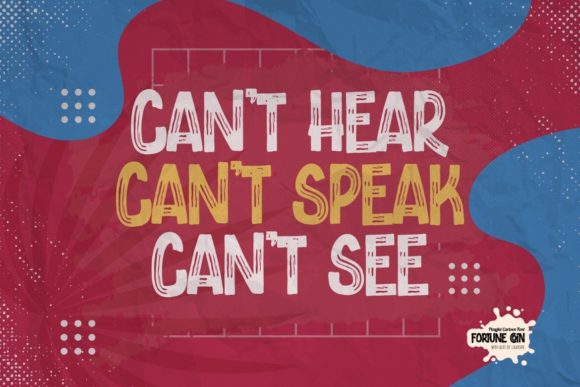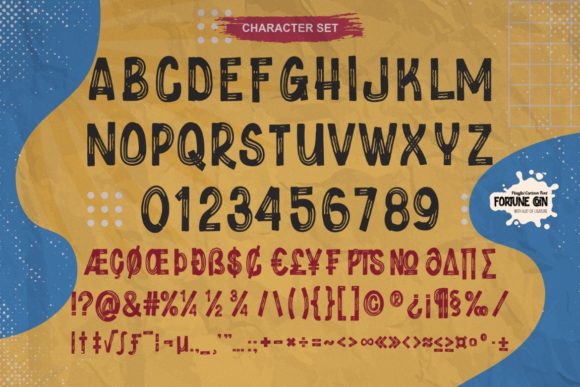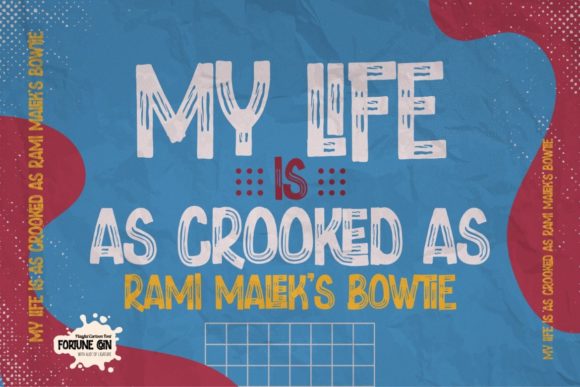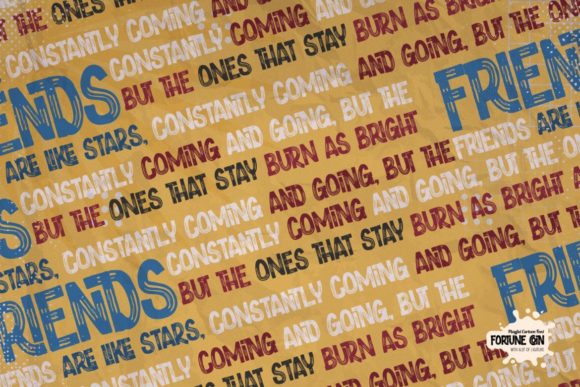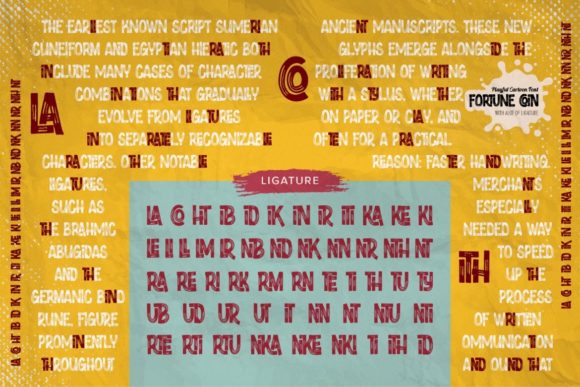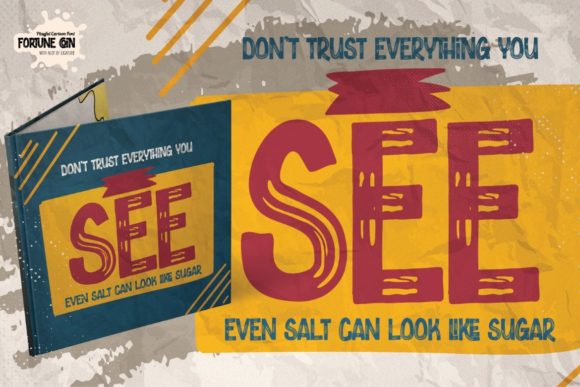
Introduction to Fortune Coin Font
Have you ever stared at a blank canvas, feeling the weight of a creative project on your shoulders? The blank page, the empty screen – it’s a daunting sight for many designers. But what if I told you that there’s a secret to unlocking your full design potential? It starts with the right tools, and that’s where the Fortune Coin Font comes in.
This cool, brushed, and bold display font is a game-changer for any design project. Whether you’re creating a poster, flyer, or print, Fortune Coin Font adds a touch of sophistication and elegance that’s hard to resist. With its versatility and high quality, it’s no wonder that designers are flocking to this font as their go-to design resource.
Key Features of Fortune Coin Font
- Unique and stylized design, perfect for creative projects that require a touch of elegance and sophistication.
- High-quality font with transparent background, ideal for designers who want to add a subtle and versatile design element to their work.
- Perfect for designers working on projects that require a touch of luxury and sophistication, such as wedding invitations, luxury branding, and high-end packaging.
Honest Review: Fortune Coin Font
As a designer, I’m always on the lookout for high-quality design resources that can elevate my creative projects. Recently, I came across the Fortune Coin Font, and I must say it’s been a great addition to my collection.
What works well: ✨ The Fortune Coin Font has a unique and eye-catching design that’s perfect for projects that require a touch of elegance and sophistication. The font is available for free download, which is a major plus for designers on a budget. The transparent background feature also makes it easy to customize and integrate into various design elements.
What doesn’t work well: ⚠️ While the Fortune Coin Font is a great design resource, I’ve noticed that it’s not ideal for large-scale text or headings. The font can get a bit blurry when enlarged, which may affect readability. Additionally, the font family is relatively small, so you may need to use it in conjunction with other fonts to achieve the desired look.
Overall, I’m impressed with the Fortune Coin Font and would definitely recommend it for designers working on creative projects that require a unique and stylish touch. With a little creativity and experimentation, you can unlock its full potential and take your designs to the next level.
- Unique and stylish design
- Not ideal for large-scale text or headings
- Font family is relatively small
Fortune Coin Font
Tips for Getting the Most Out of Fortune Coin Font
Use Fortune Coin Font on a transparent background to create a unique and eye-catching design. Experiment with different font sizes and colors to achieve the desired effect.
Fortune Coin Font is ideal for creative projects that require a unique and stylish font. It’s perfect for use in social media graphics, logo designs, and other visual content where a high-quality font is essential. With a free download option, it’s an excellent design resource for designers and non-designers alike.